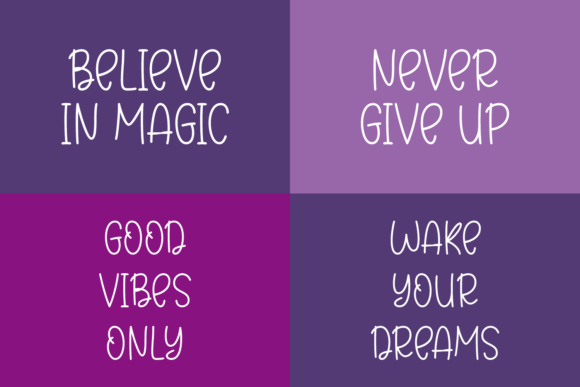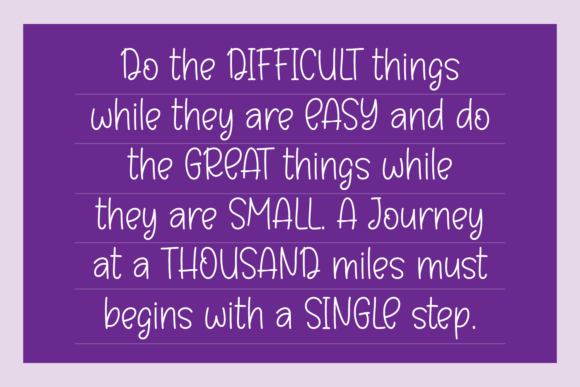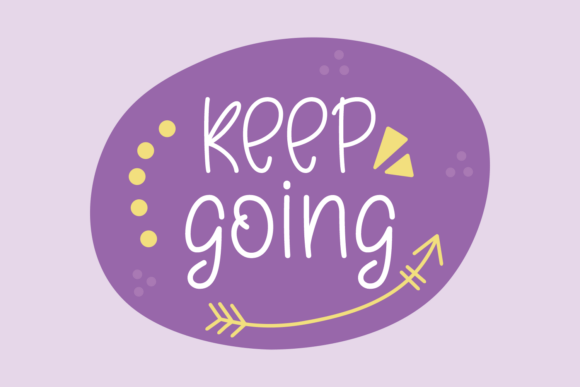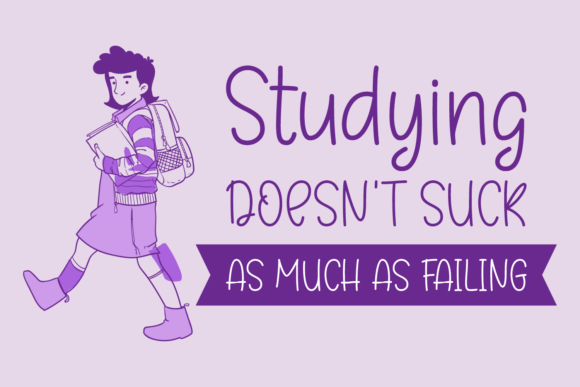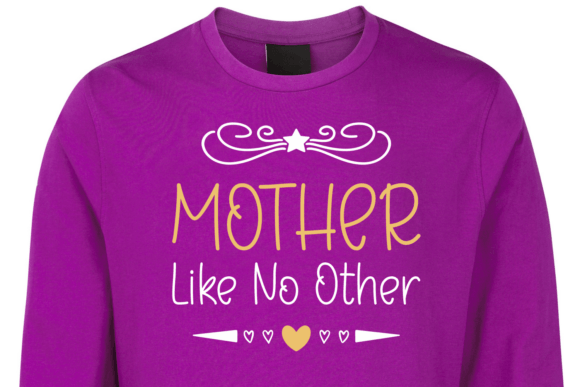
Introducing Beat Magic Font: The Ultimate Choice for Creative Projects
Are you a designer, crafter, or DIY enthusiast looking for a font that can add a touch of magic to your creative projects? Look no further than Beat Magic Font, a casual, handwritten font that exudes charm and personality. With its smooth, flowing lines and playful curves, Beat Magic is the perfect choice for a wide range of applications, from invitations and branding to social media designs and more.
The Characteristics of Beat Magic Font
Beat Magic Font is a unique and eye-catching typeface that boasts a number of distinctive characteristics. Its smooth, flowing lines and playful curves give it a whimsical and elegant feel that’s perfect for creative projects. The font’s casual, handwritten style makes it feel approachable and friendly, while its elegant lines and curves add a touch of sophistication.
What Makes Beat Magic Font So Versatile?
One of the things that sets Beat Magic Font apart from other fonts is its incredible versatility. Whether you’re designing an invitation, creating a social media graphic, or developing a brand identity, Beat Magic Font can help you achieve your goals. Its smooth lines and playful curves make it perfect for a wide range of applications, from:
- Invitations and event planning
- Branding and logo design
- DIY crafts and projects
The Benefits of Using Beat Magic Font
So why choose Beat Magic Font for your creative projects? Here are just a few of the benefits of using this amazing font:
- Adds a touch of whimsy and elegance: Beat Magic Font’s unique blend of playfulness and sophistication makes it the perfect choice for designers and crafters who want to add a touch of magic to their projects.
- Perfect for creative projects: Whether you’re designing an invitation, creating a social media graphic, or developing a brand identity, Beat Magic Font is the perfect choice.
- Easy to read and understand: Despite its playful and whimsical feel, Beat Magic Font is incredibly easy to read and understand, making it perfect for use in a wide range of applications.
- Fully customizable: Beat Magic Font can be customized to suit your needs, allowing you to adjust the size, color, and style to fit your project’s requirements.
How to Use Beat Magic Font in Your Designs
Using Beat Magic Font in your designs is easy! Here are a few tips to get you started:
- Pair it with bold graphics: Beat Magic Font looks amazing when paired with bold graphics and images. Try using it in combination with a bold logo or graphic to create a striking visual effect.
- Experiment with colors: Beat Magic Font comes in a range of colors, from bold and bright to soft and pastel. Experiment with different colors to find the perfect look for your project.
- Add some texture: Beat Magic Font looks amazing with texture! Try adding a subtle texture to your design to give it a tactile feel.